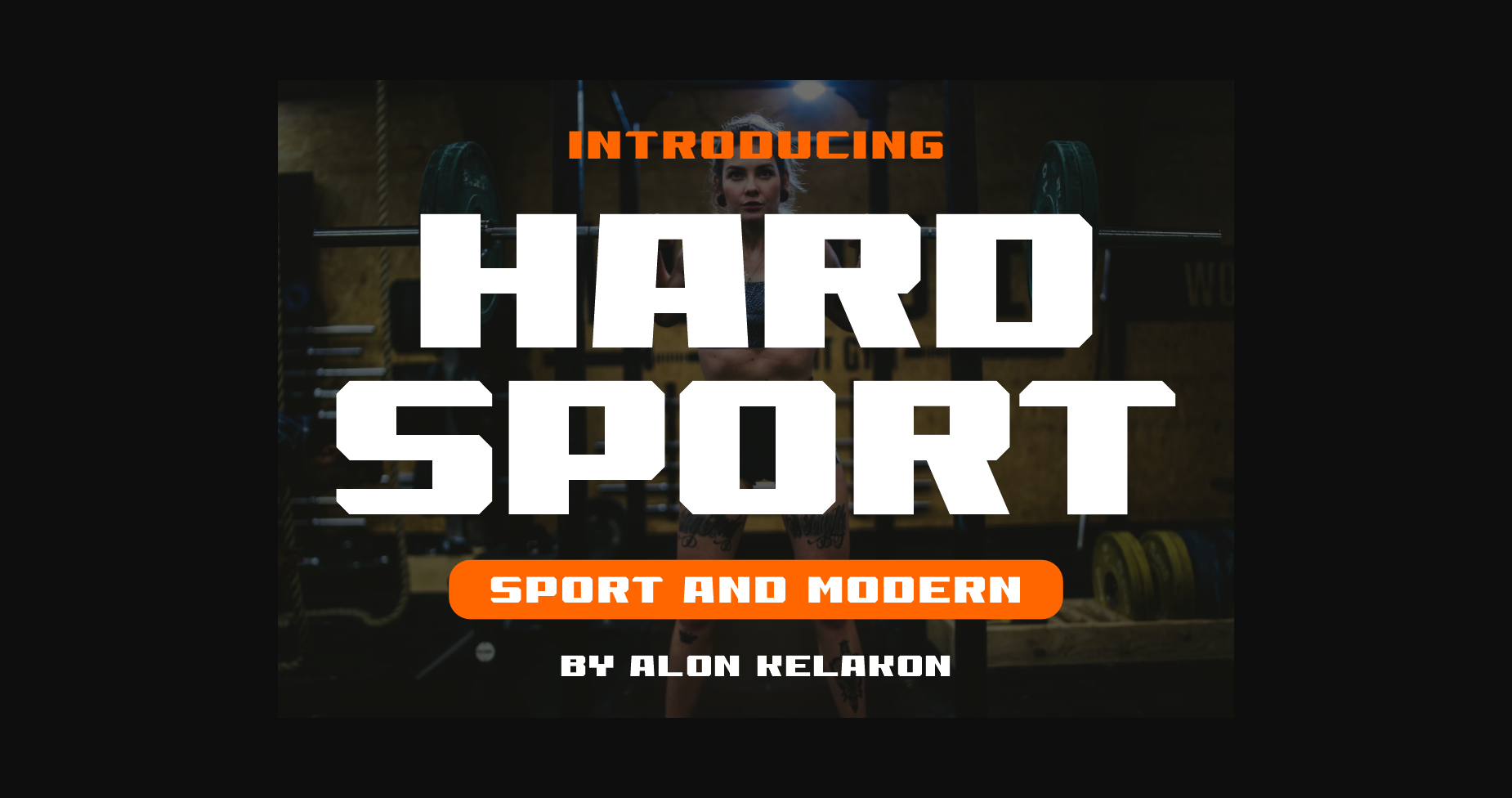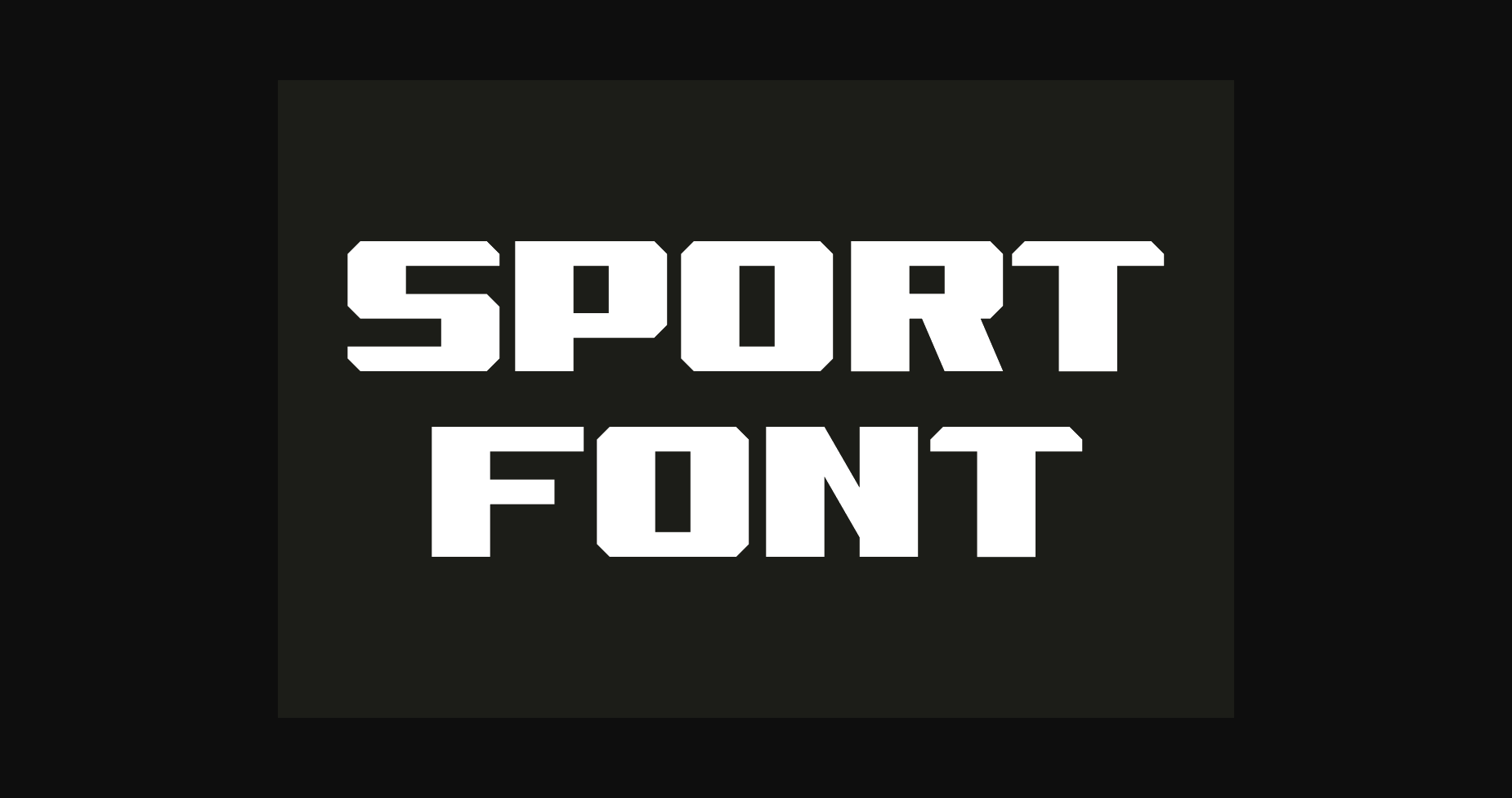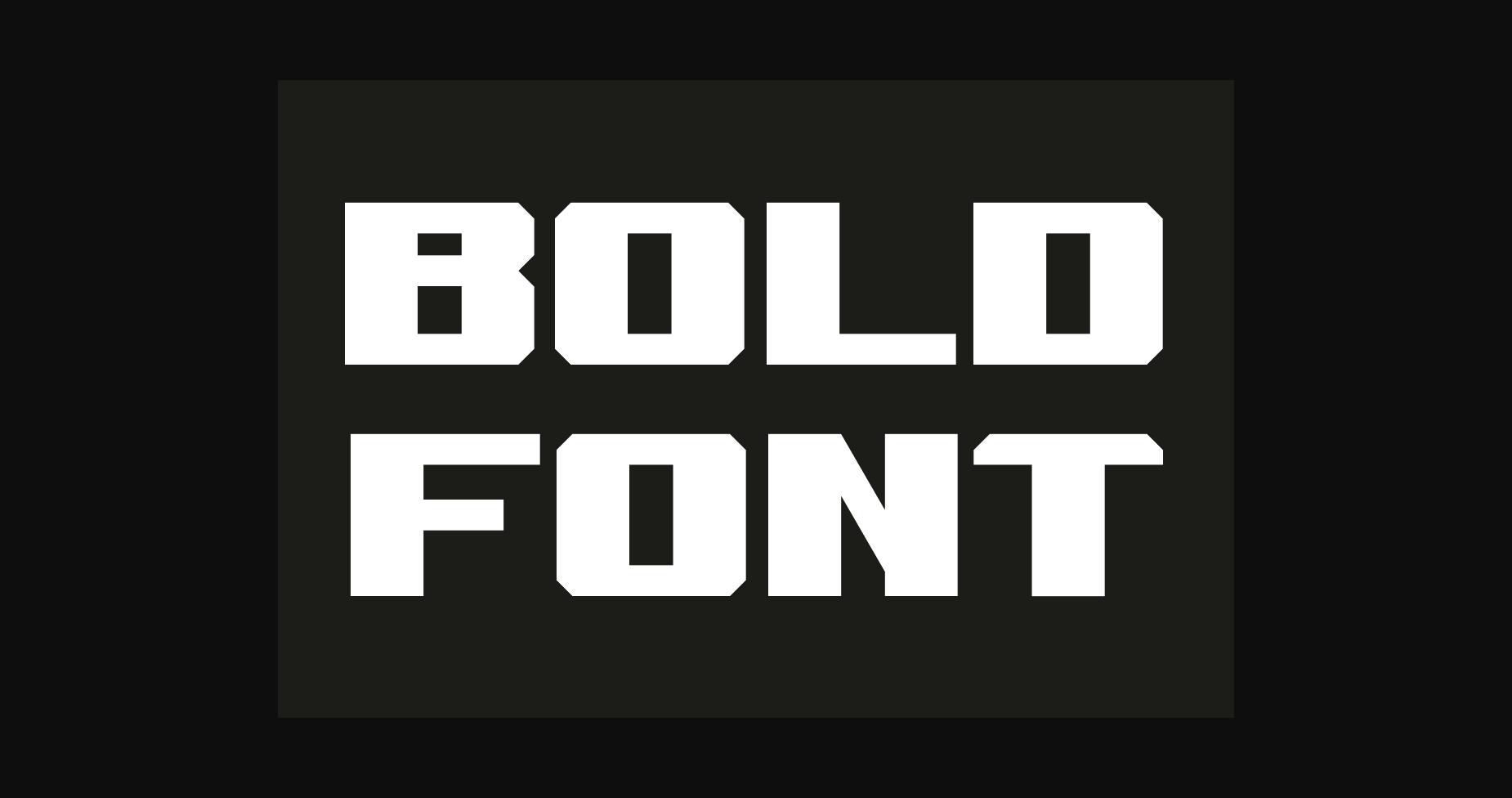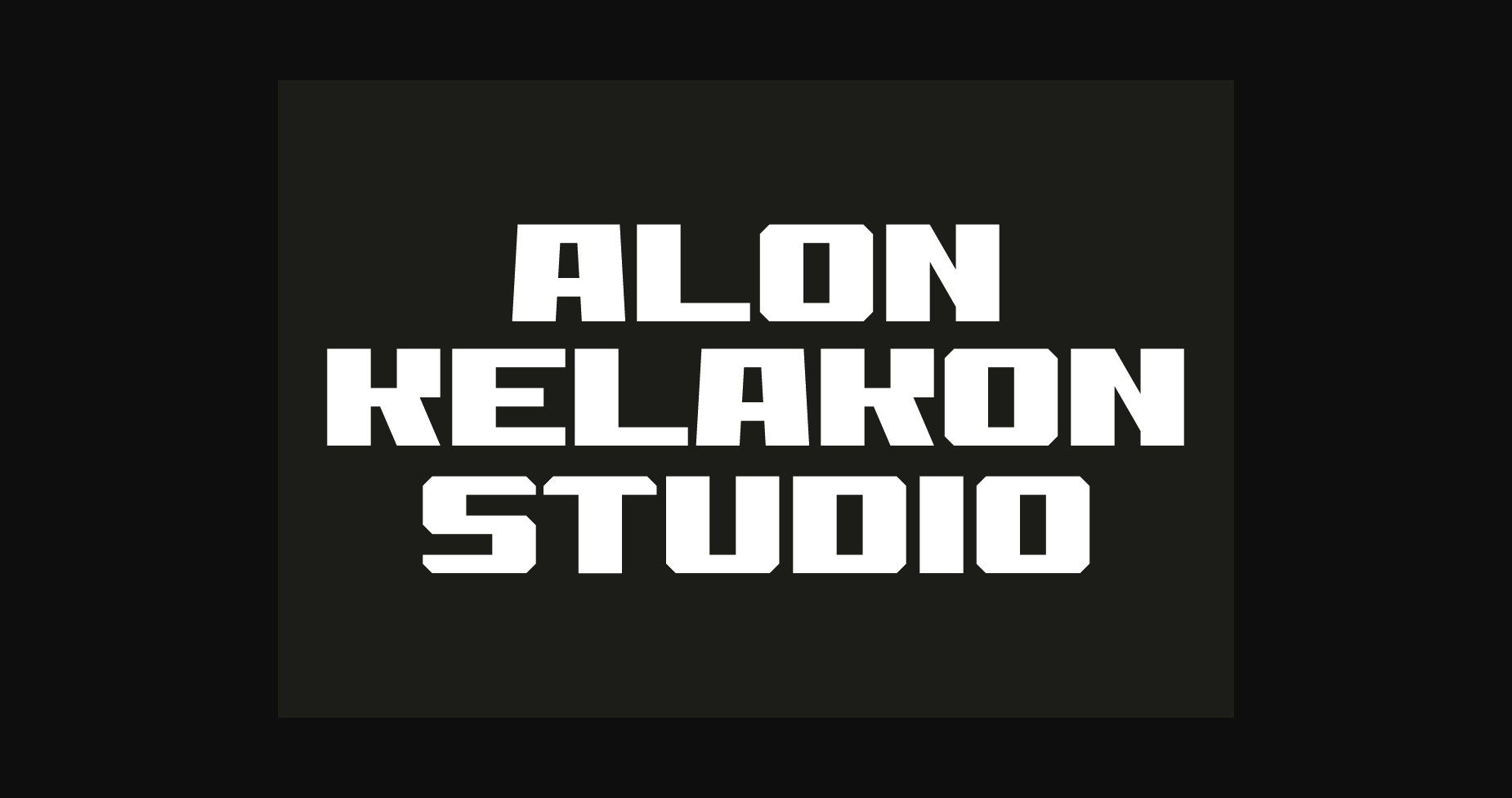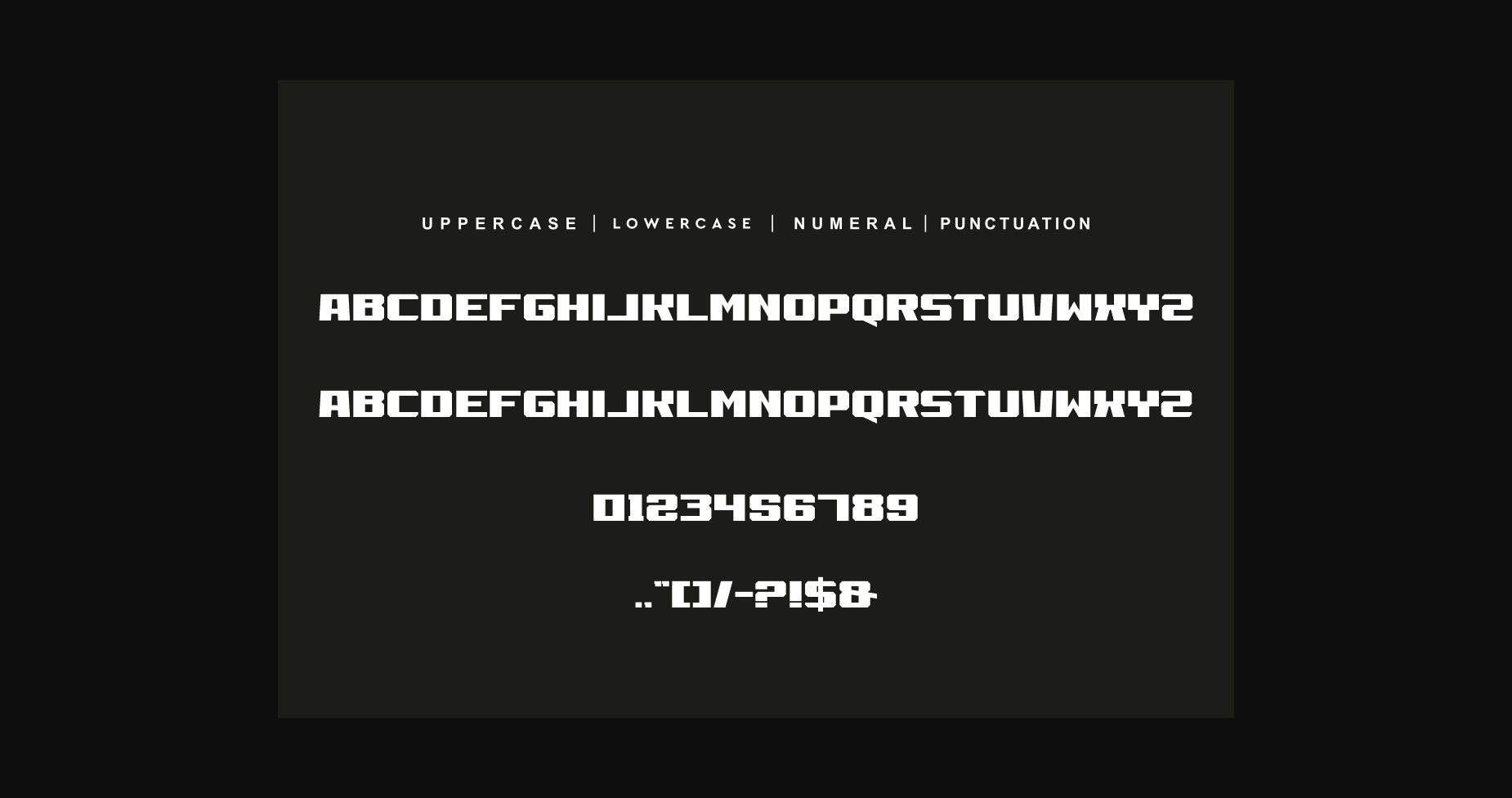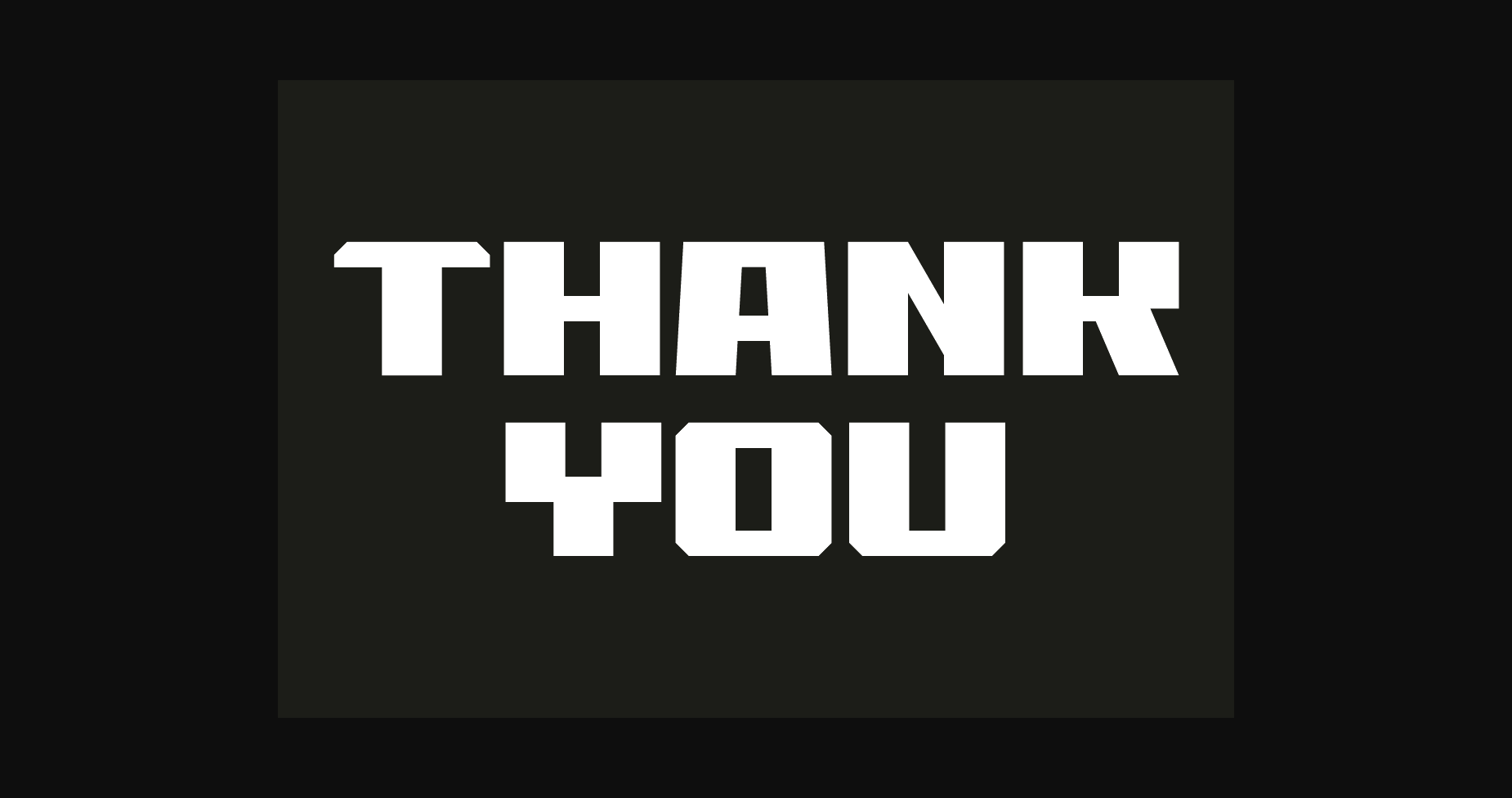
About Hard Sport Font
Hard Sport feels playfully nostalgic and delivers an incredible vintage aesthetic. Use this sans serif font to add that special retro touch to any design idea you can think of!